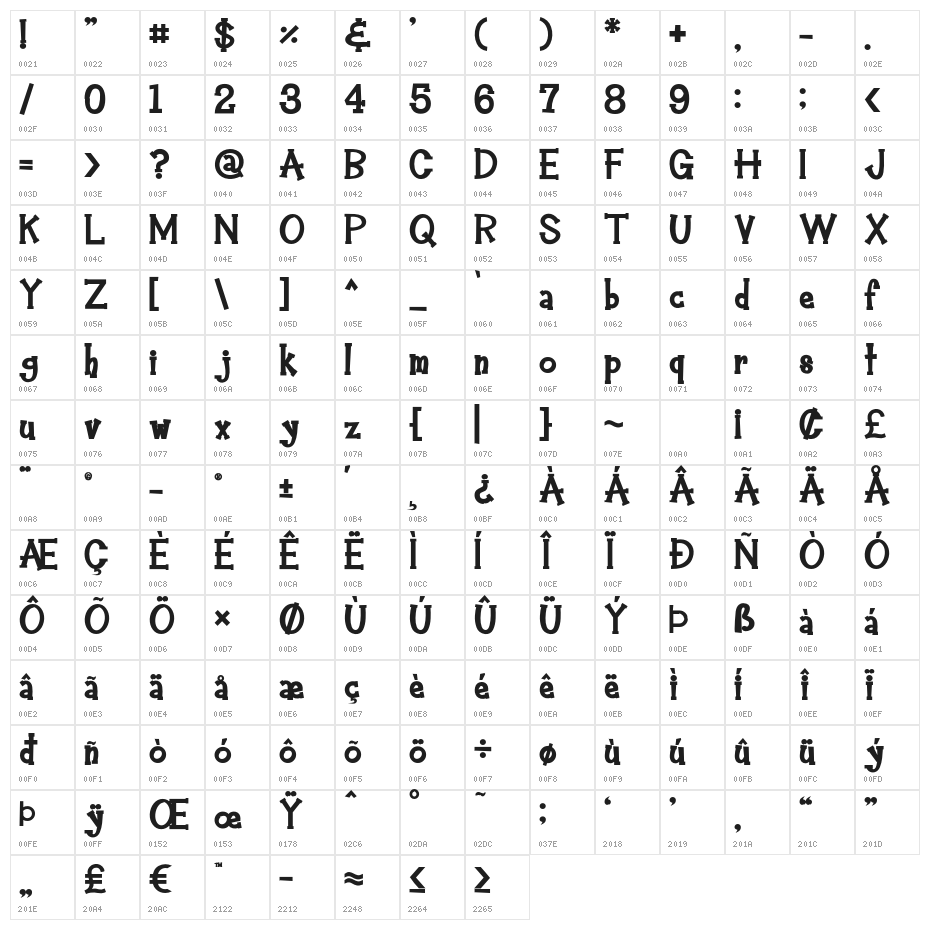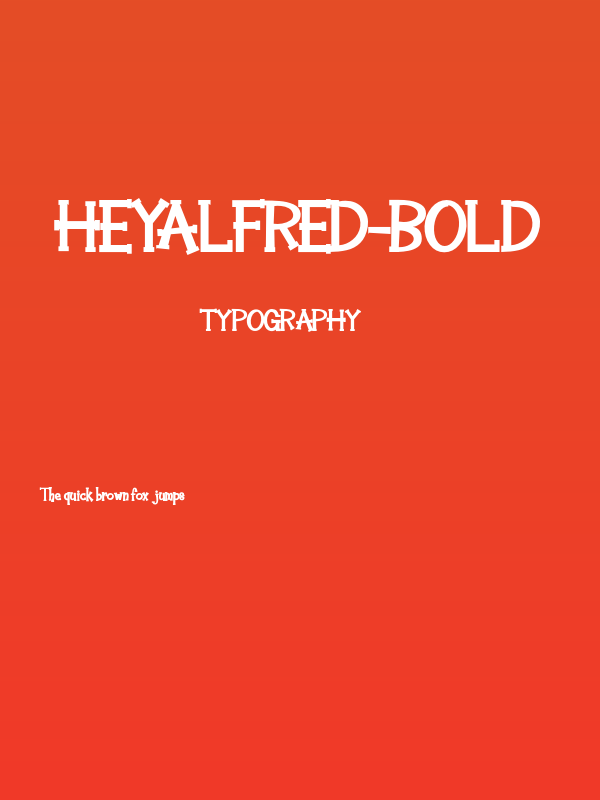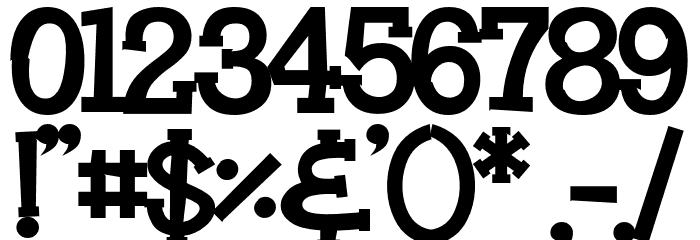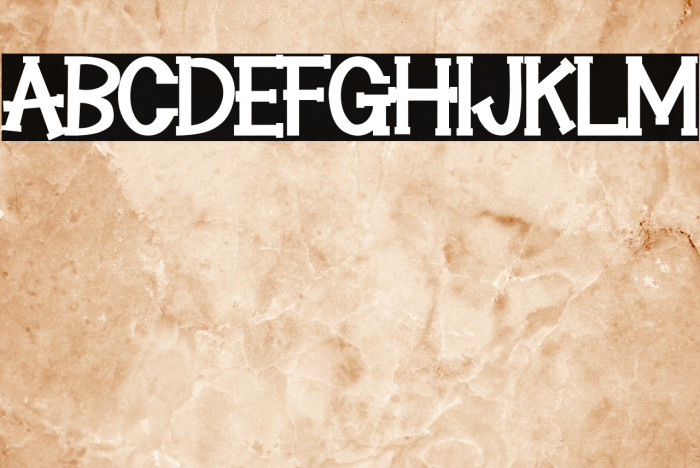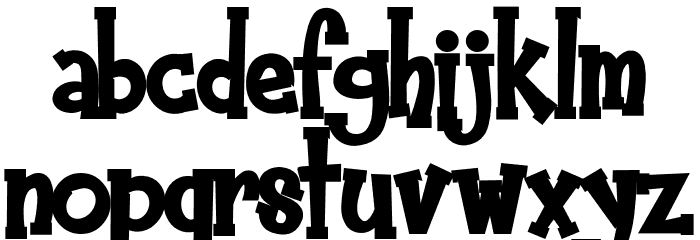
HeyAlfred-Bold Font
HeyAlfred-Bold Description
This font features a bold and playful style with a distinctive, slightly irregular character design that adds a whimsical touch. The uppercase letters are strong and commanding, while the lowercase letters maintain a consistent, rounded appearance. The numerals are bold and easily readable, making them suitable for various applications. Special characters are creatively designed, adding to the font's unique personality. The overall look is dynamic and eye-catching, perfect for projects that require a fun and engaging typeface.
| Overall Style | Playful, Whimsical, Fun |
| Proposed Projects | Ideal for children's books, playful branding, posters, and creative advertising. |